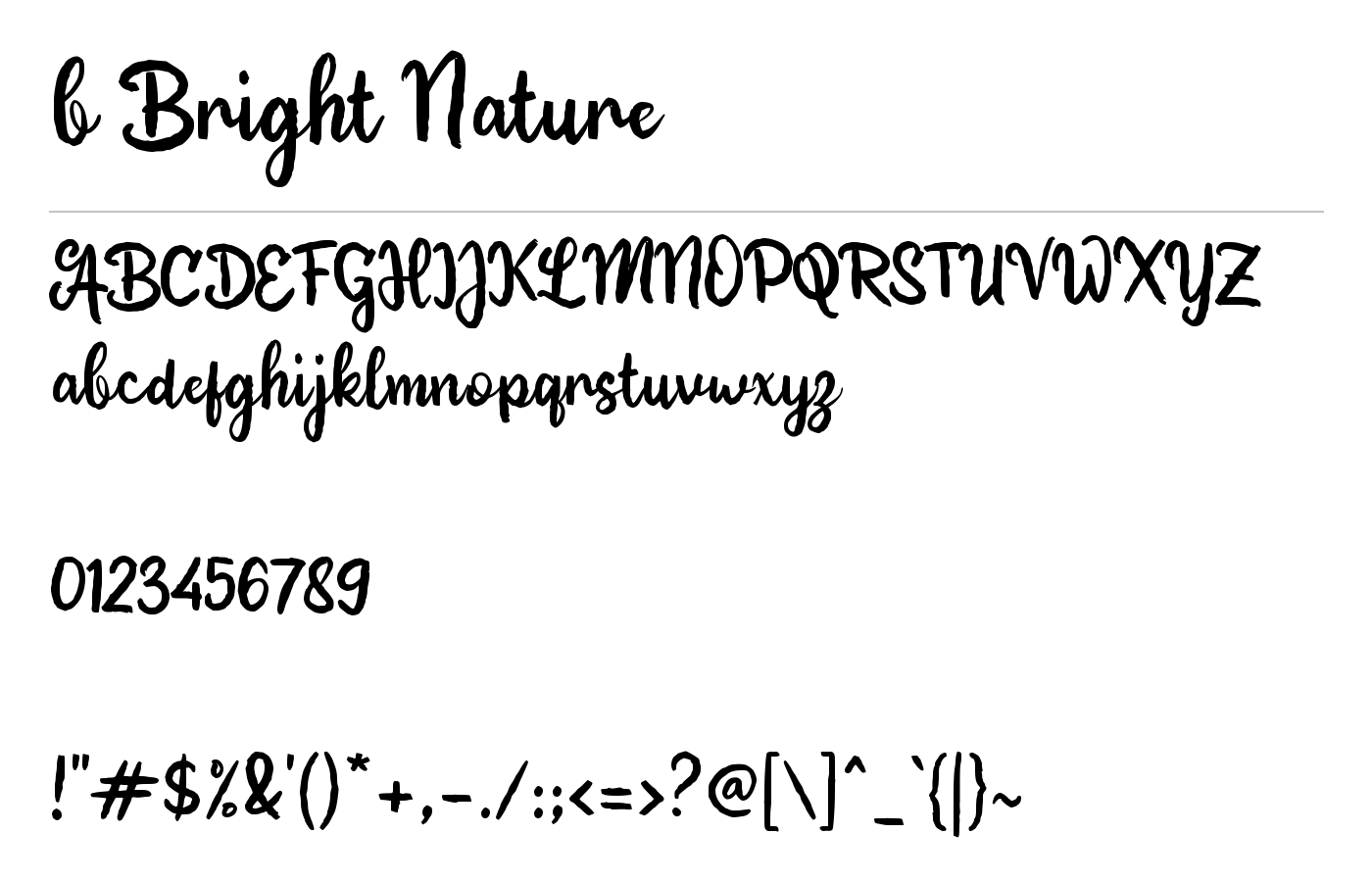
Bright Nature is a charming handwritten script font with a bold, playful character and smooth, organic strokes that lend it a lively, natural feel. Its upright letterforms feature moderate contrast and fluid curves, making it ideal for creative projects that want to evoke warmth and friendliness, such as lifestyle branding, packaging, and casual headlines. This font’s casual elegance and expressive style work well where a personal, approachable touch is desired.
b Bright Nature Font
About b Bright Nature Font